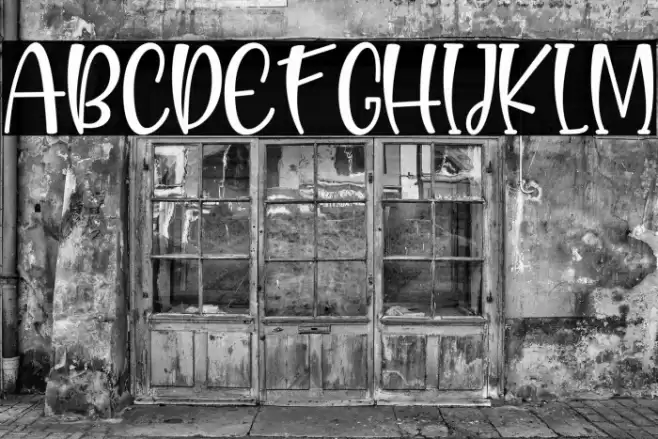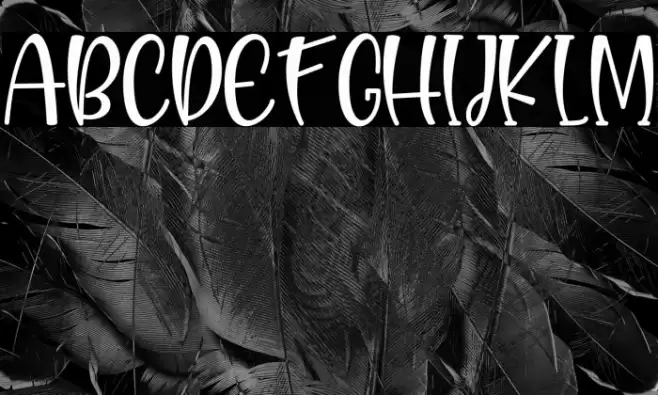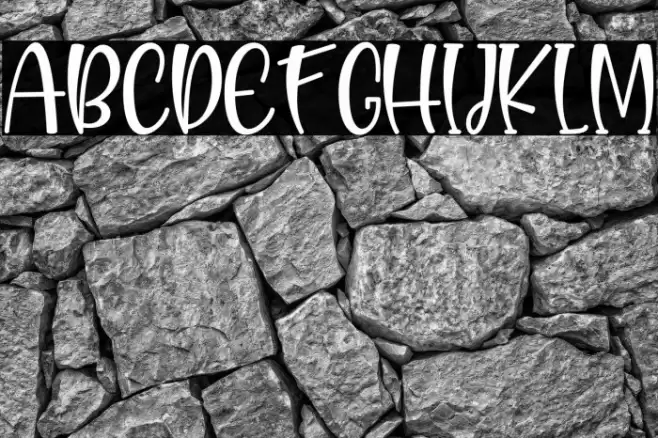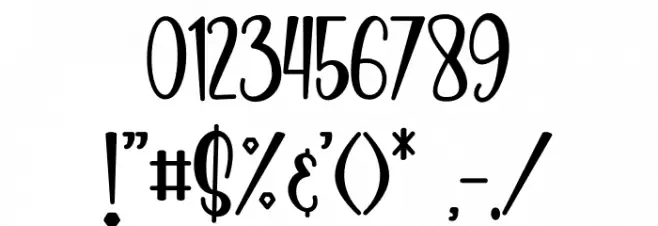
Kiddos Planet Font
Kiddos Planet Description
This playful and whimsical font features a handwritten style with a lively and energetic appearance. The letters are characterized by their irregular shapes and varying stroke widths, giving them a dynamic and informal look. The uppercase letters are bold and slightly exaggerated, while the lowercase letters maintain a consistent flow with a touch of quirkiness. The numbers and special characters complement the overall style, adding to the font's versatility. This font is perfect for projects that require a fun and approachable aesthetic, making it ideal for children's books, playful branding, and creative designs.
A playful, handwritten font with a lively and informal style from Cartoon fonts.
- Font: Kiddos Planet
- Proposed Projects: Ideal for children's books, playful branding, and creative designs.
- Overall Style: Playful
- Use Case: Headlines, Logos, Creative designs